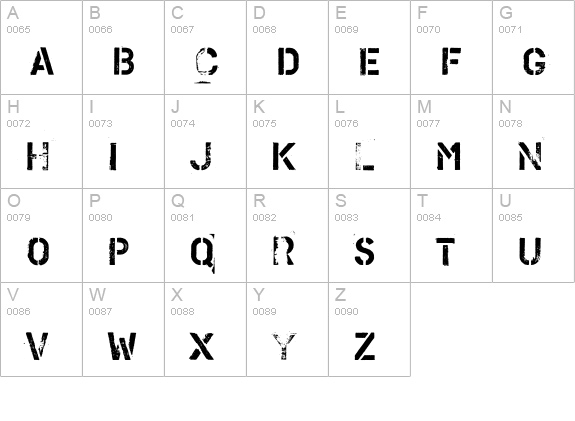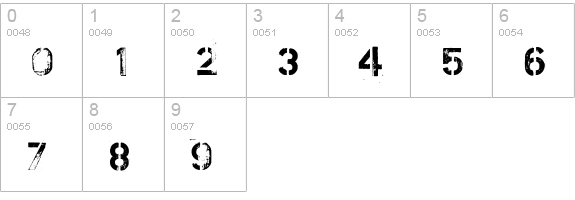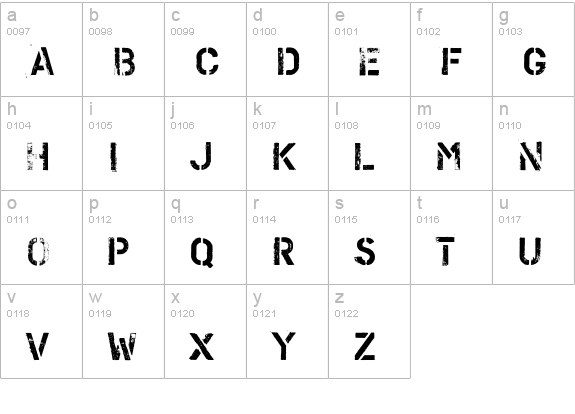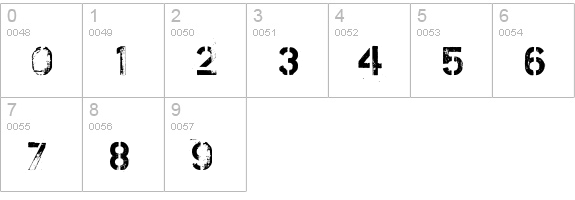
PFStampsPro-Metal Font Details
PFStampsPro-Metal is a striking and bold display font that exudes a sense of strength and power. Its metallic design gives it a modern and industrial look, making it perfect for projects that require a touch of edginess and sophistication. The sharp angles and sleek lines of this font make it stand out and capture attention instantly. With a wide range of characters and symbols, PFStampsPro-Metal is versatile and can be used for various design purposes, such as logos, headlines, posters, and more. Its unique style adds a dynamic element to any project, making it a great choice for those looking to make a bold statement. Best of all, PFStampsPro-Metal is completely free to download at FontsMarket.com, allowing designers and creatives to access this powerful font without any cost. Don't miss out on this opportunity to add a touch of metal-inspired flair to your designs with PFStampsPro-Metal.